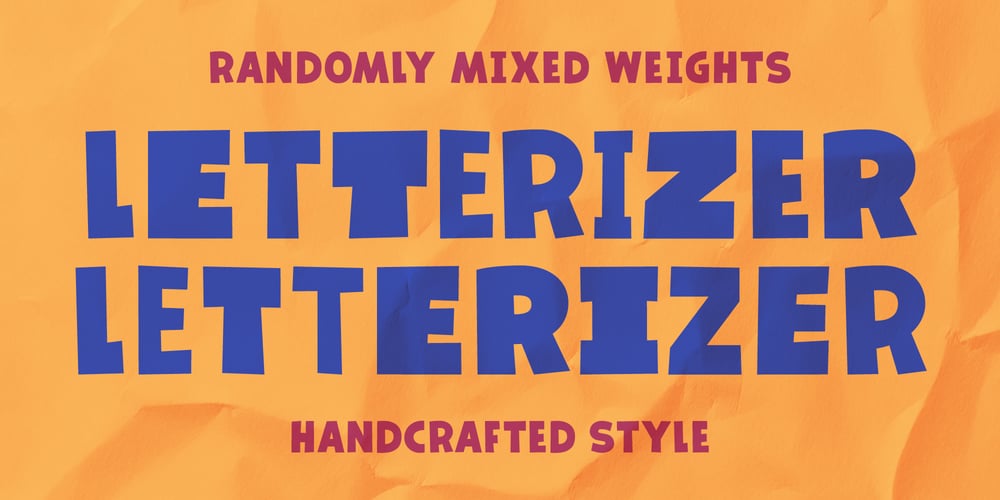
Letterizer Font Family was designed by Max Glimm and published by Max Glimm Type. Letterizer contains 6 styles and family package options. Letterizer is a bold exploration of imperfection and spontaneity in type design. Each letterform of this all-caps typeface is hand-drawn with organic, free-flowing shapes that defy geometric precision. With four distinct weights—Regular, Medium, Bold, and Heavy—Letterizer introduces a groundbreaking ‘Random’ style, where each letter in a word dynamically shifts between weights, creating a lively and unpredictable visual rhythm. To use the ‘Random’ style in some design programs, you’ll need to enable Contextual Alternates in the OpenType settings.For designers seeking more control, Letterizer also includes traditional weights and a Variable Font version, enabling seamless interpolation. Letterizer is more than a typeface—it’s a playful rebellion against the ordinary, injecting creativity and vibrancy into every design.